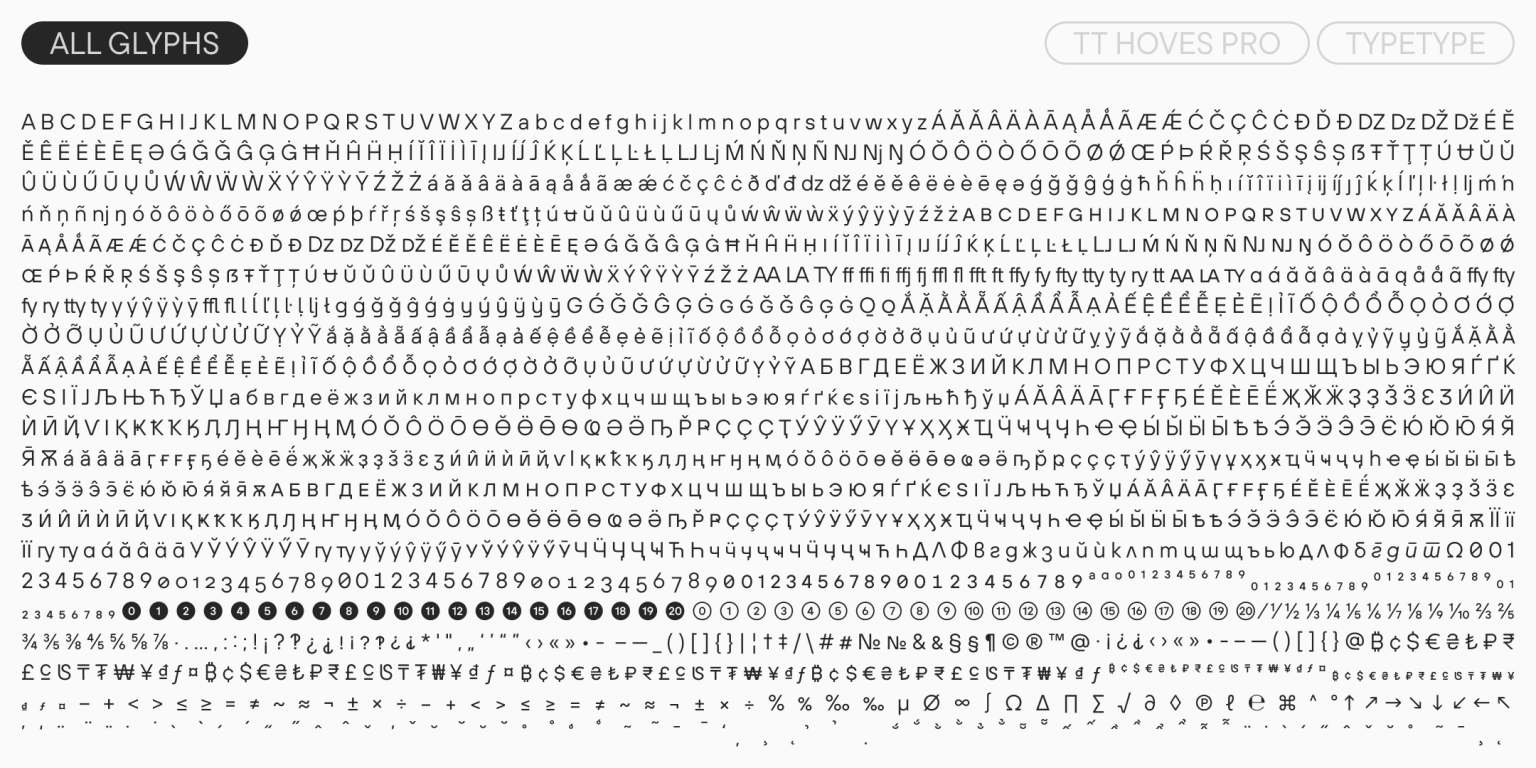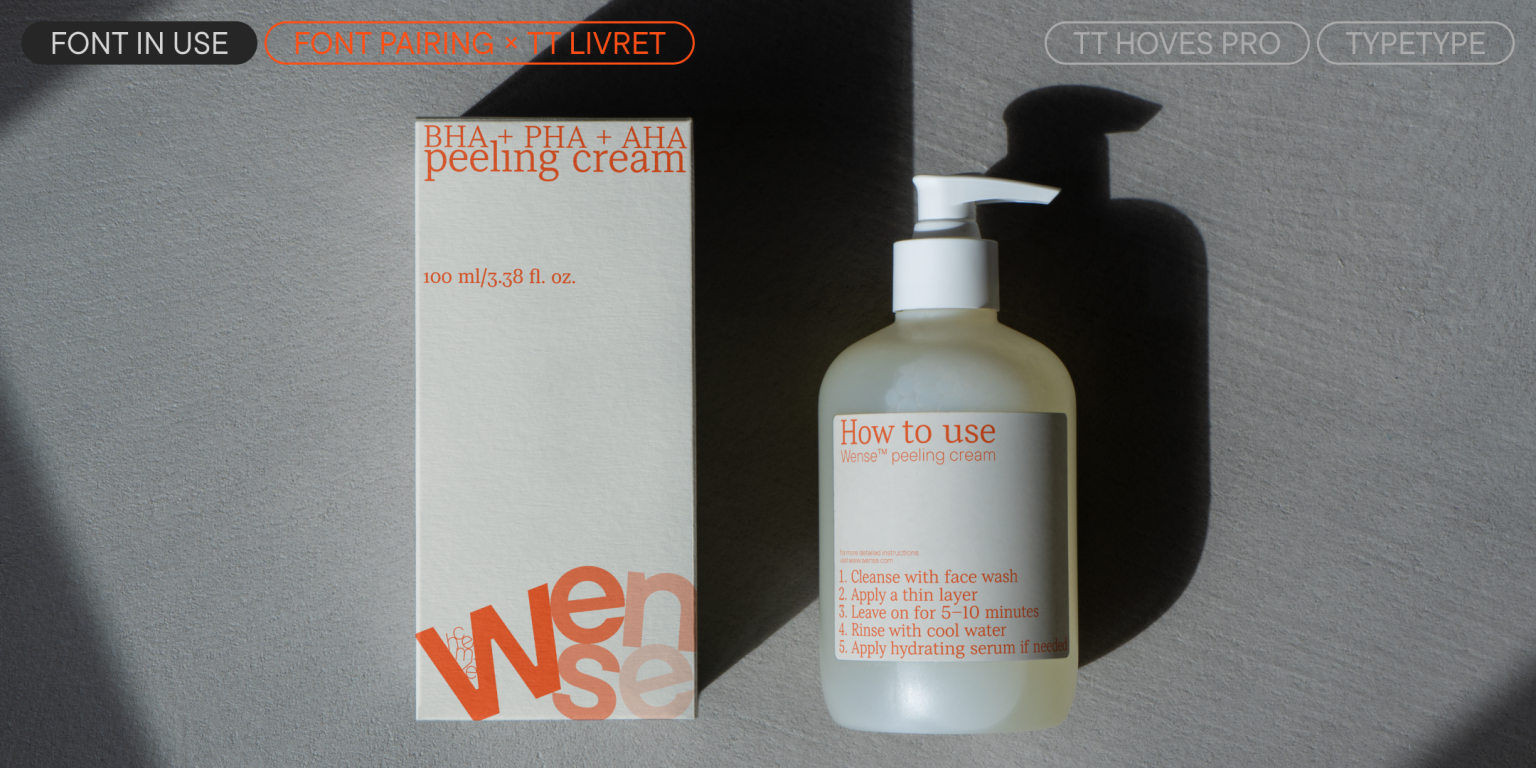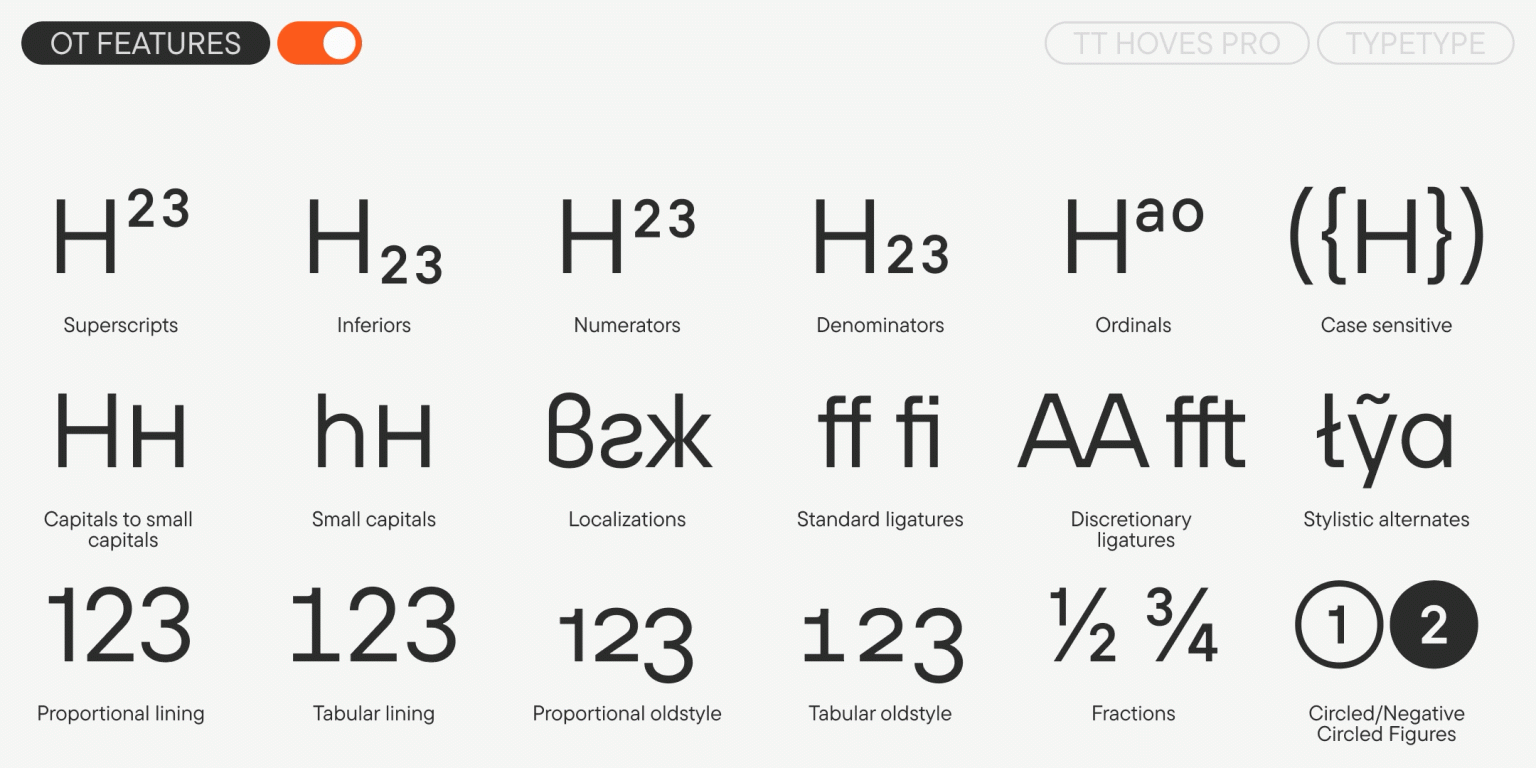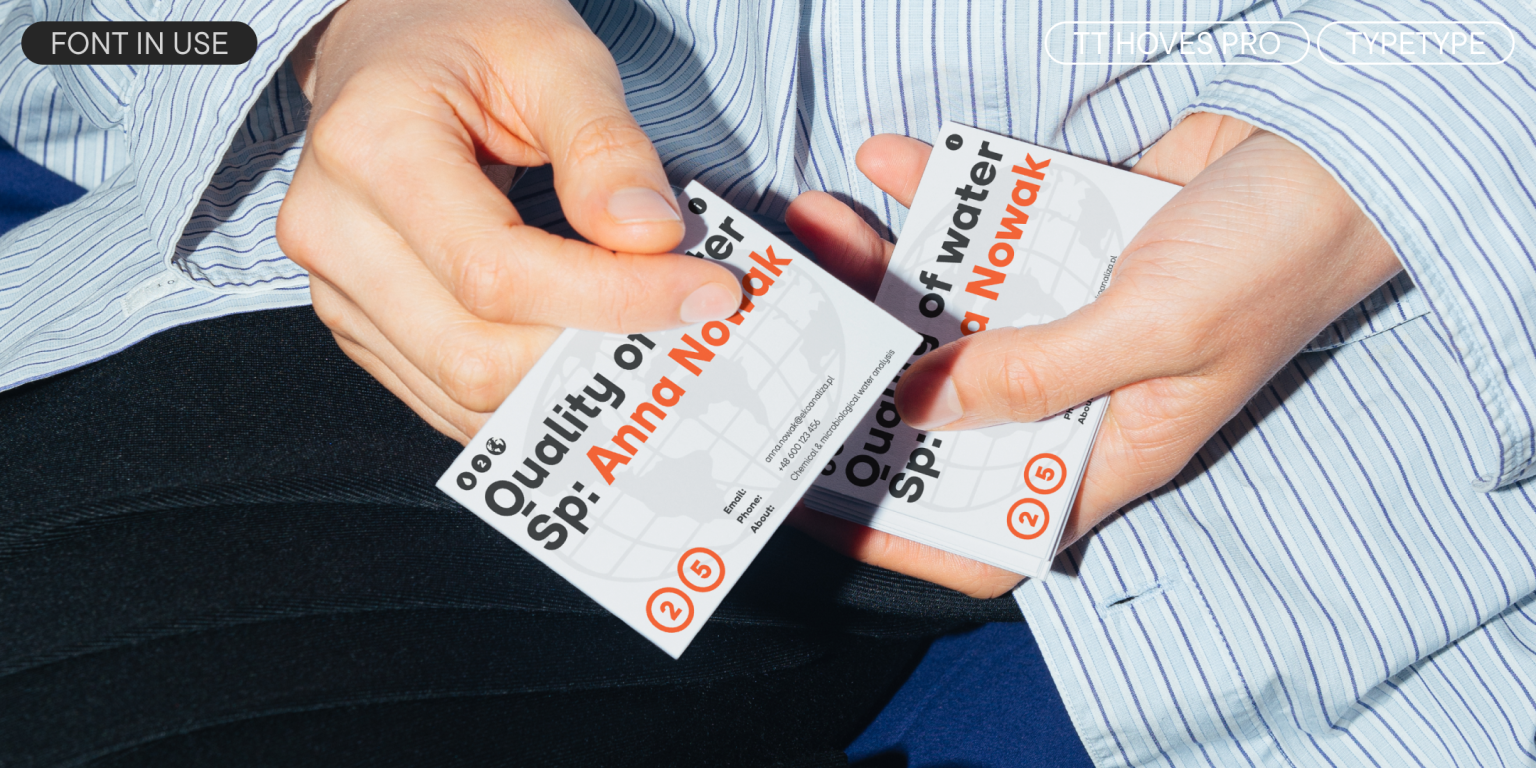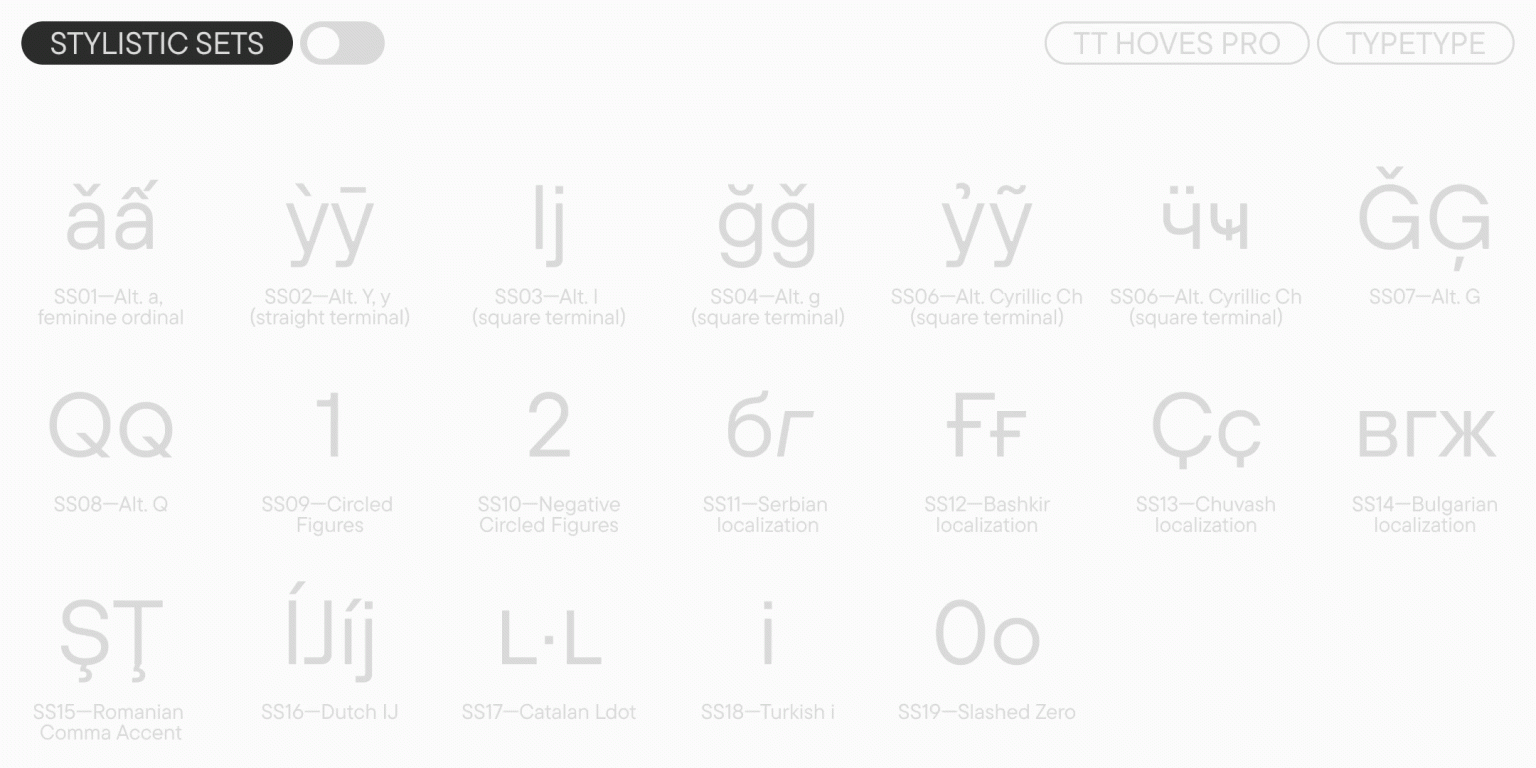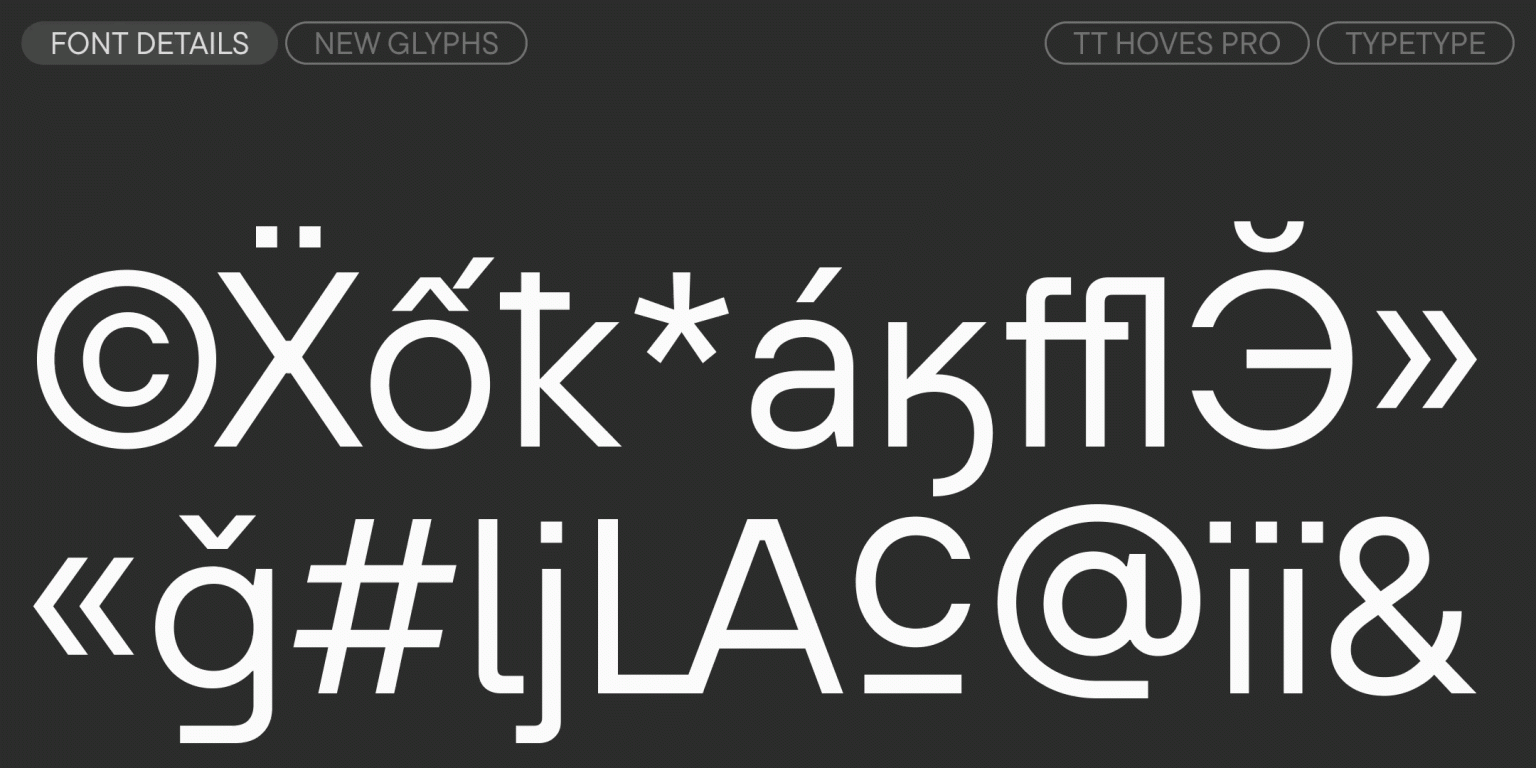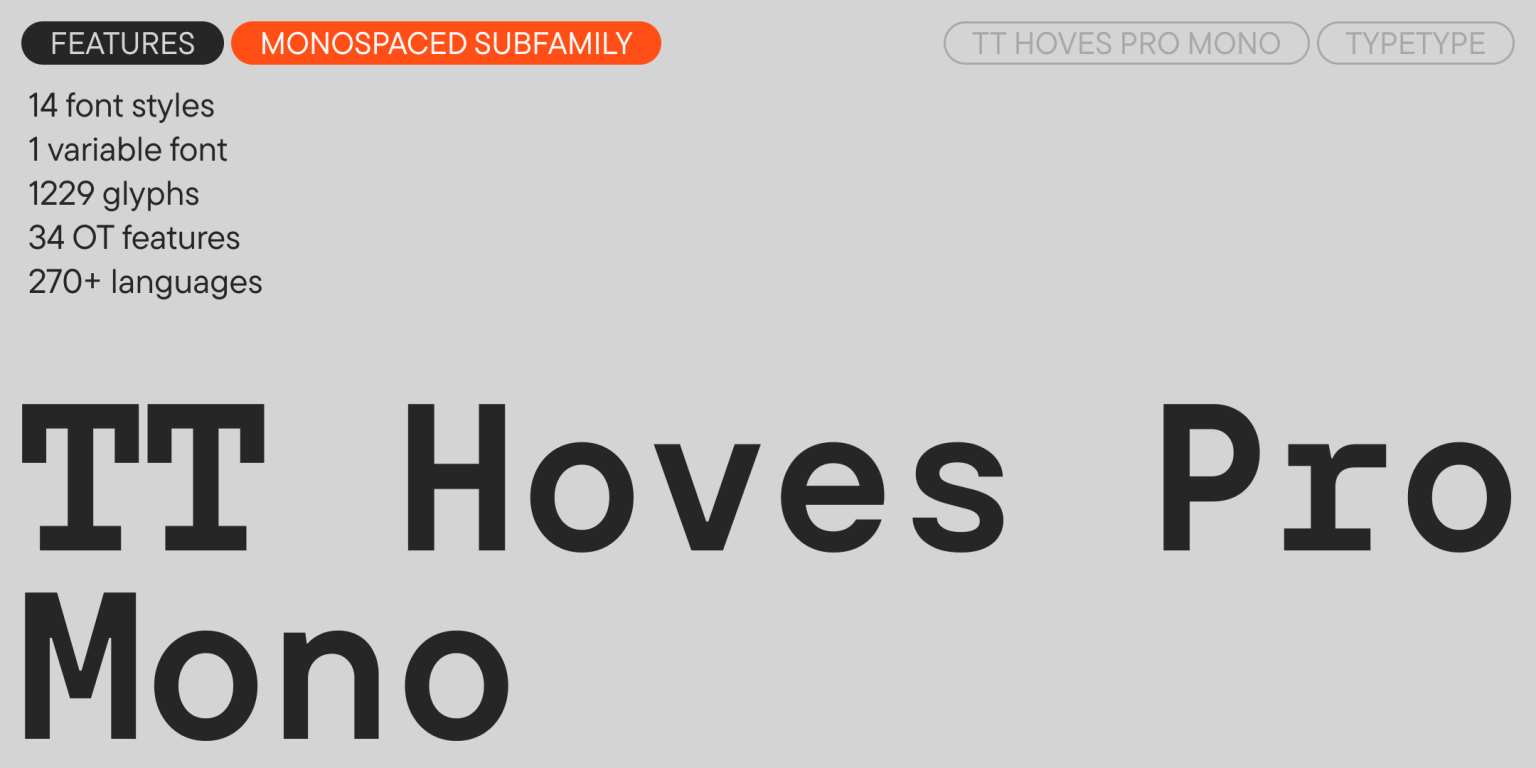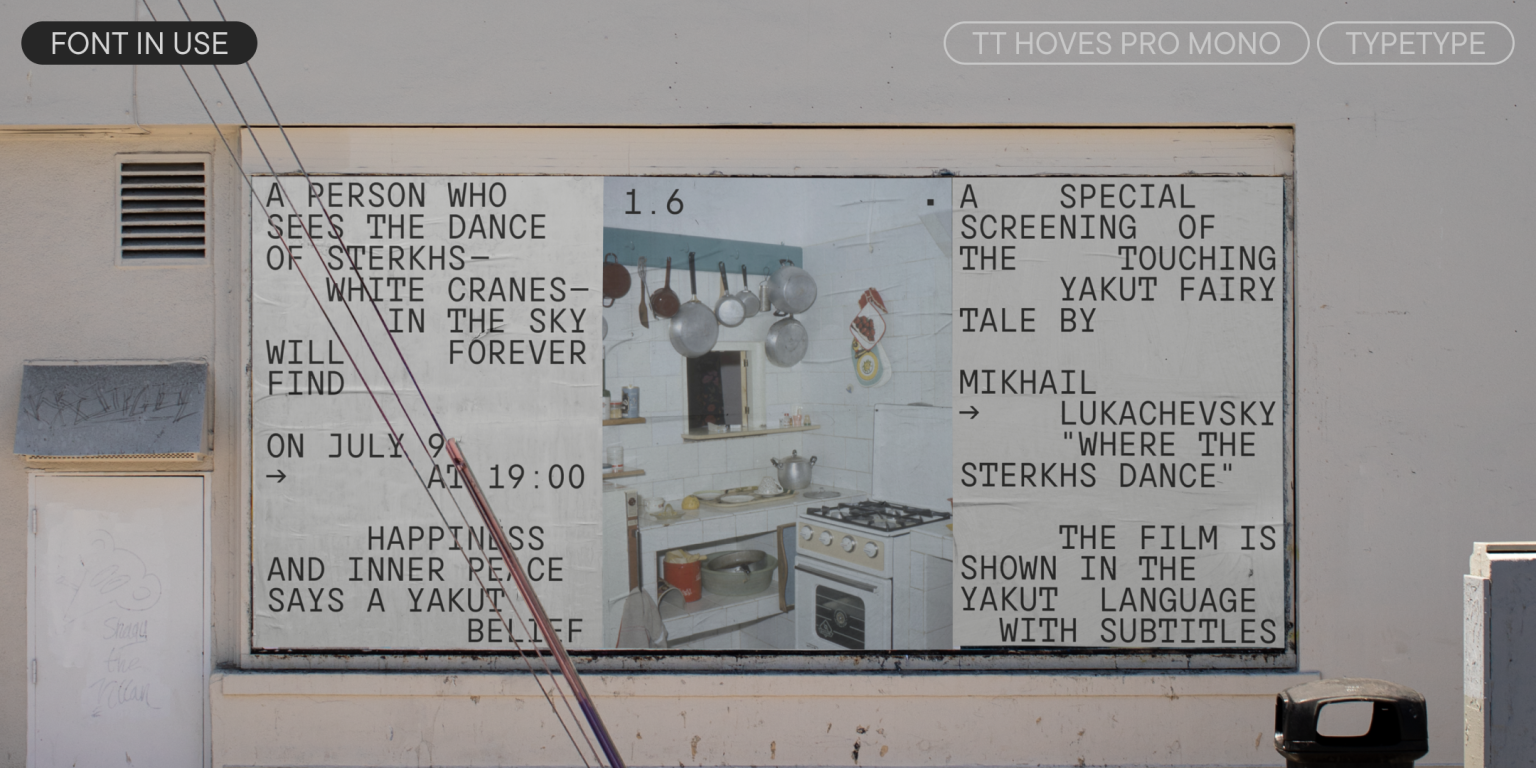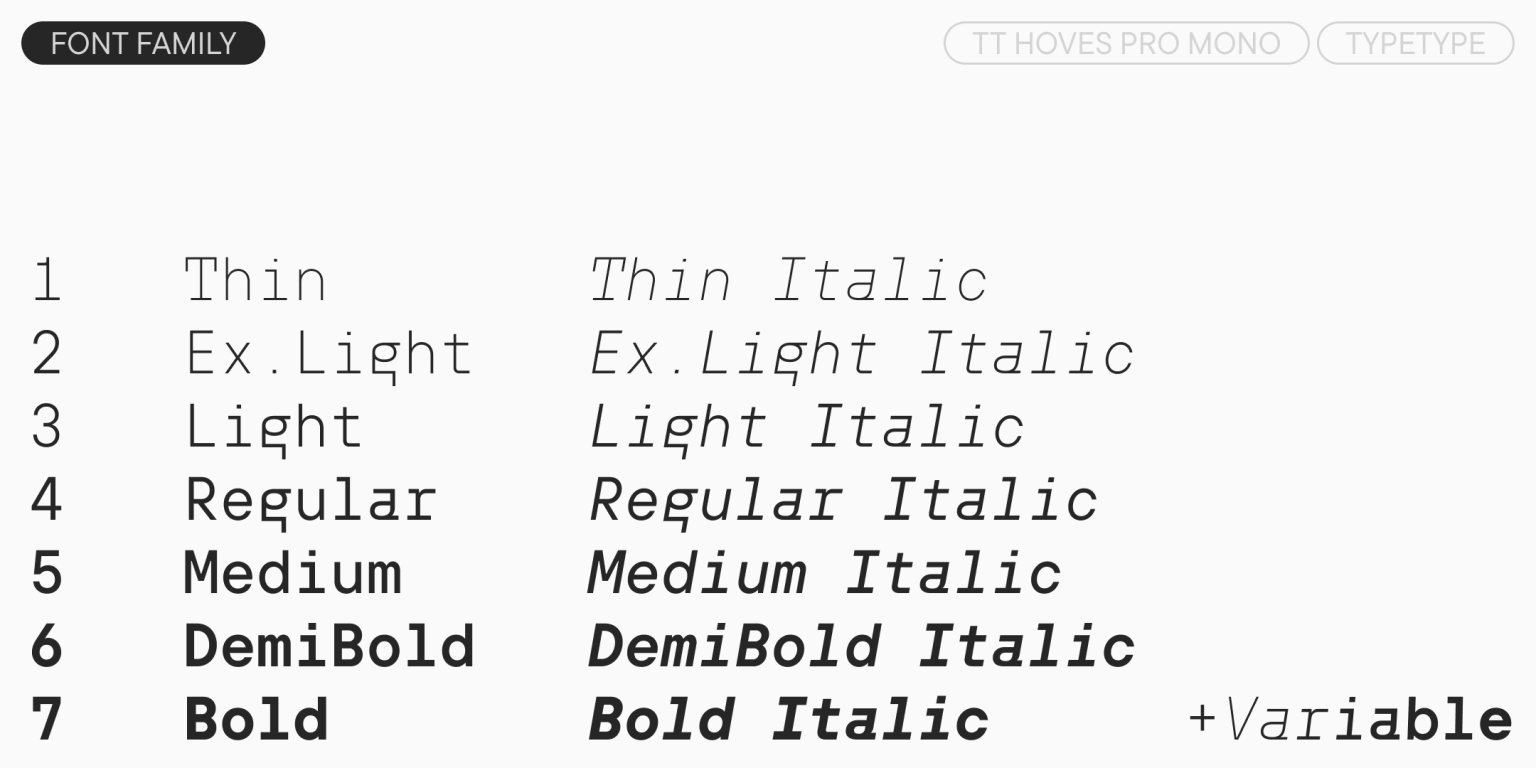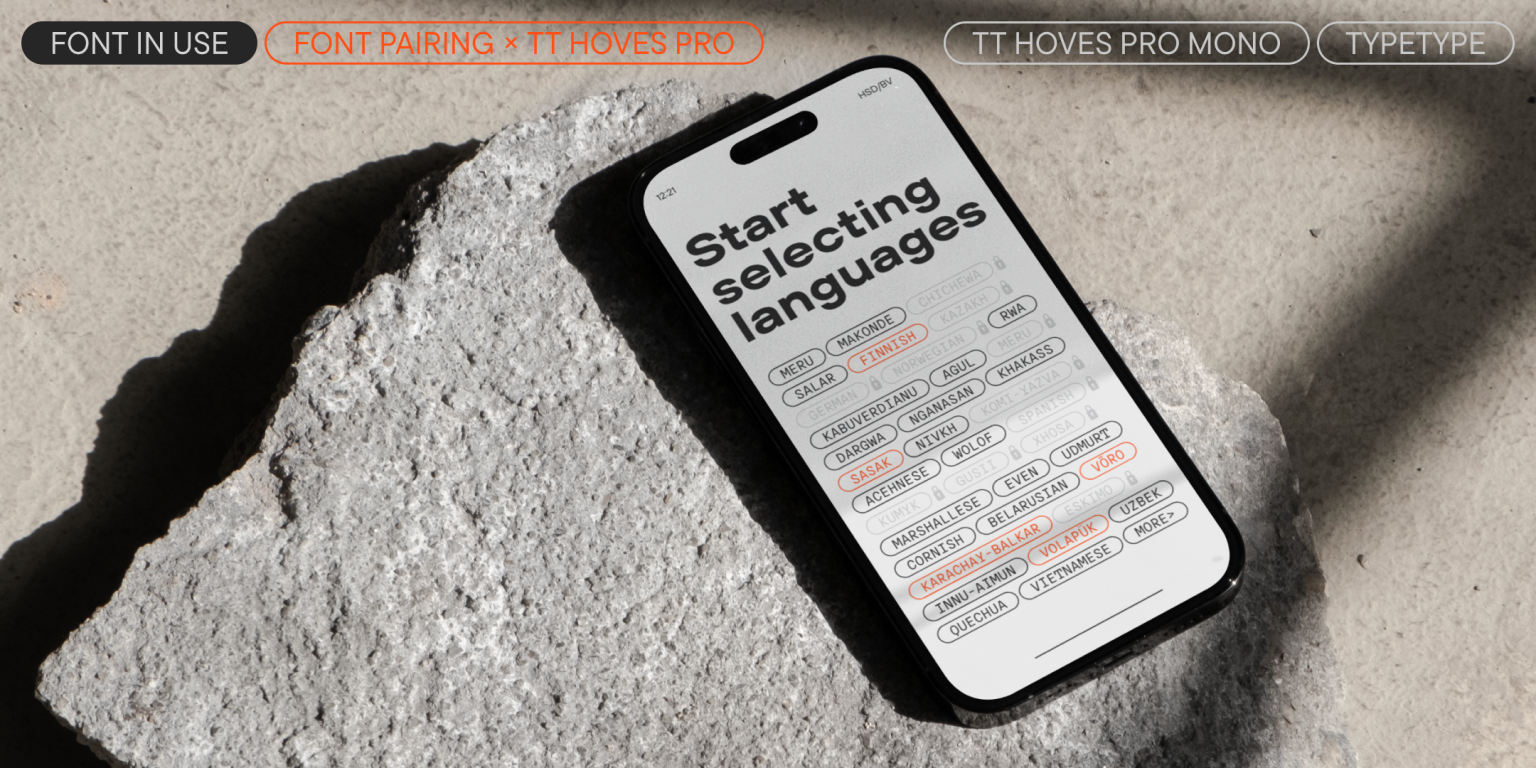
TT Hoves Pro
TT Hoves Pro is a contemporary typeface by TypeType designed for branding, interfaces, editorial layouts, and digital products. It is a Scandinavian sans serif that balances neutrality with character. TT Hoves Pro font combines utility, style, and aesthetic refinement for diverse applications.
Consistency Through Typographic Systems
Typography is best seen as a system that carries consistency across formats and platforms. A combination of fonts frequently becomes the first step in building that structure. Within this system, each typeface usually has a clear role: one defines the identity through headlines or display use, while the other provides stability in longer text and functional UI elements. Together, they form a structure that scales across websites, apps, marketing assets, and product screens. This systemic approach reduces design fragmentation and helps teams maintain a unified visual language over time.